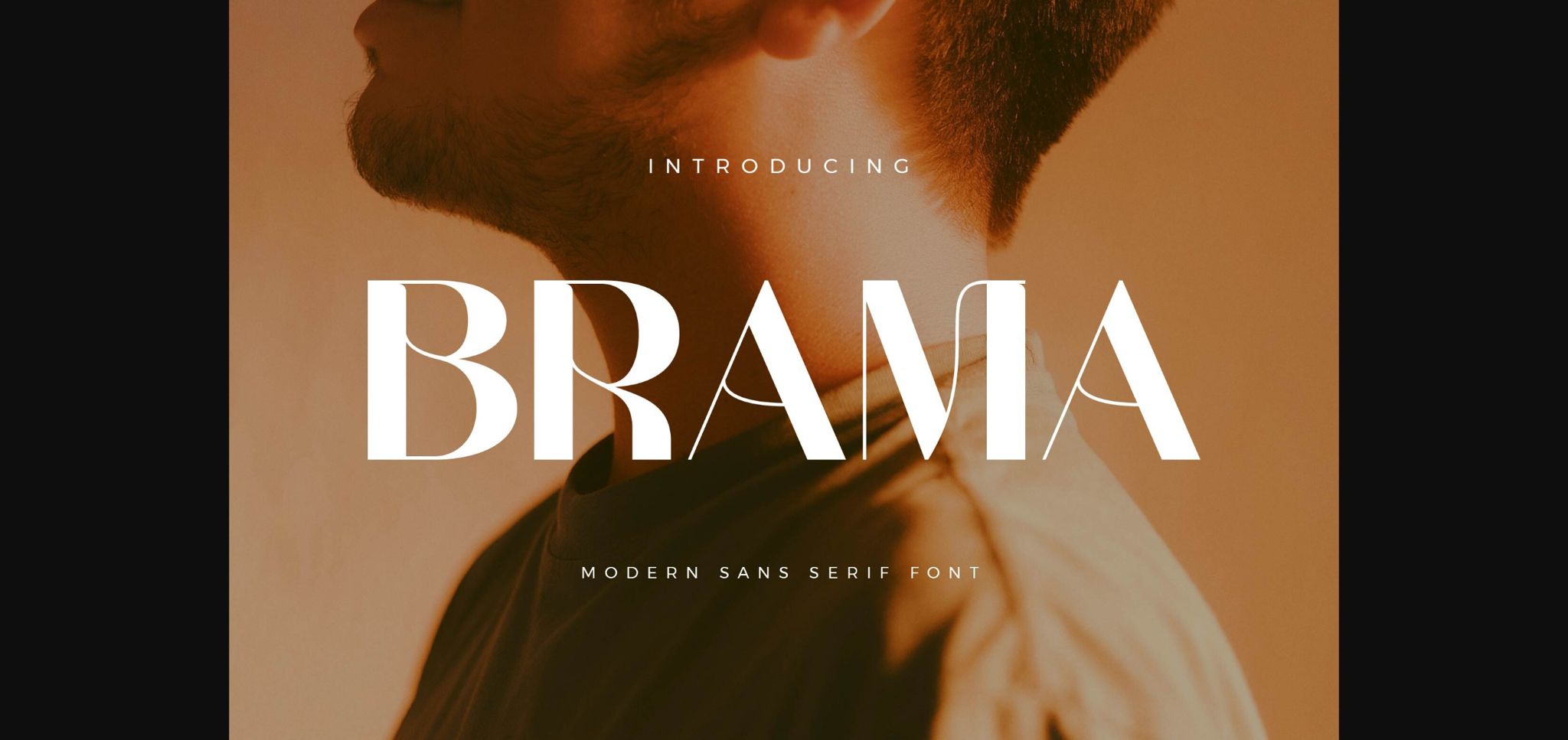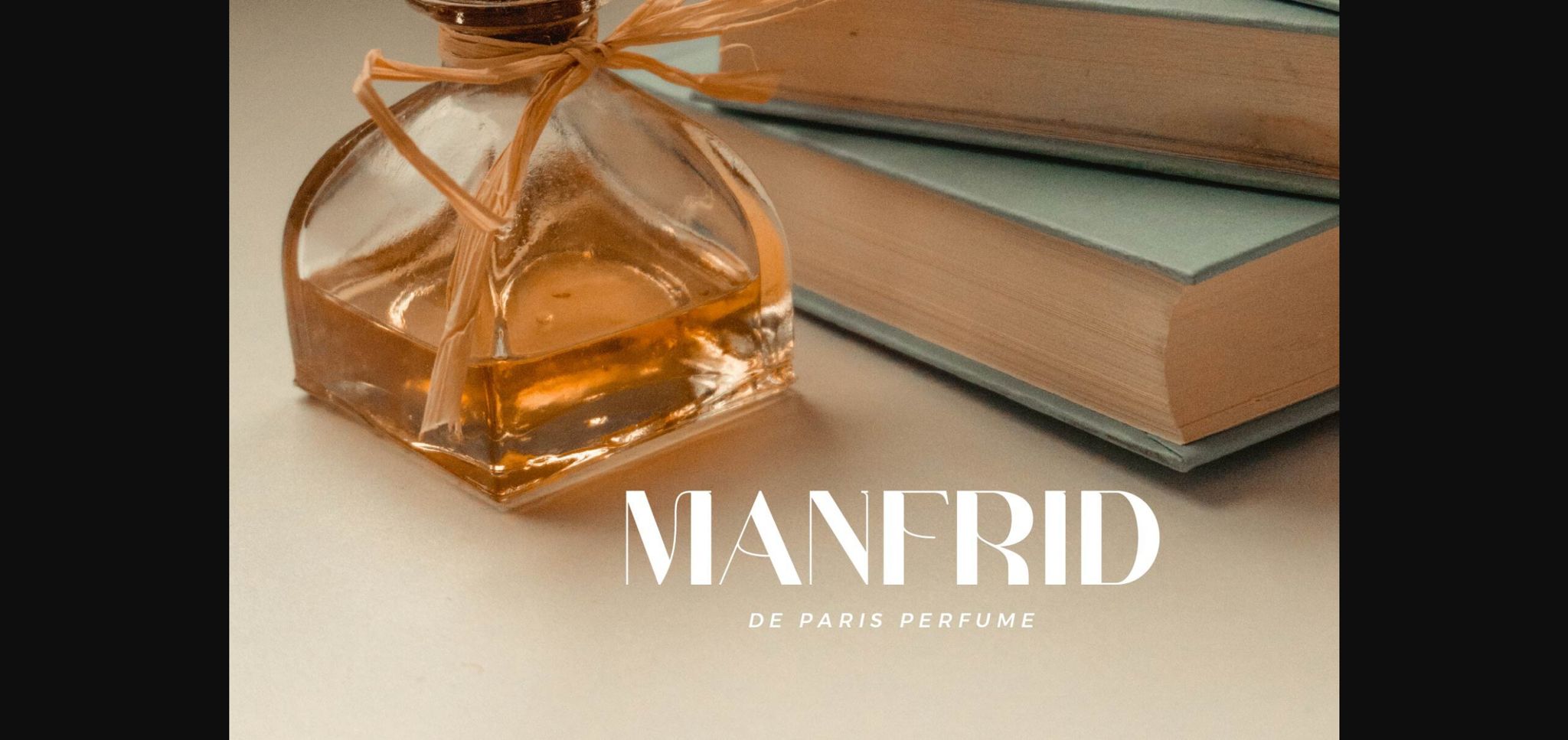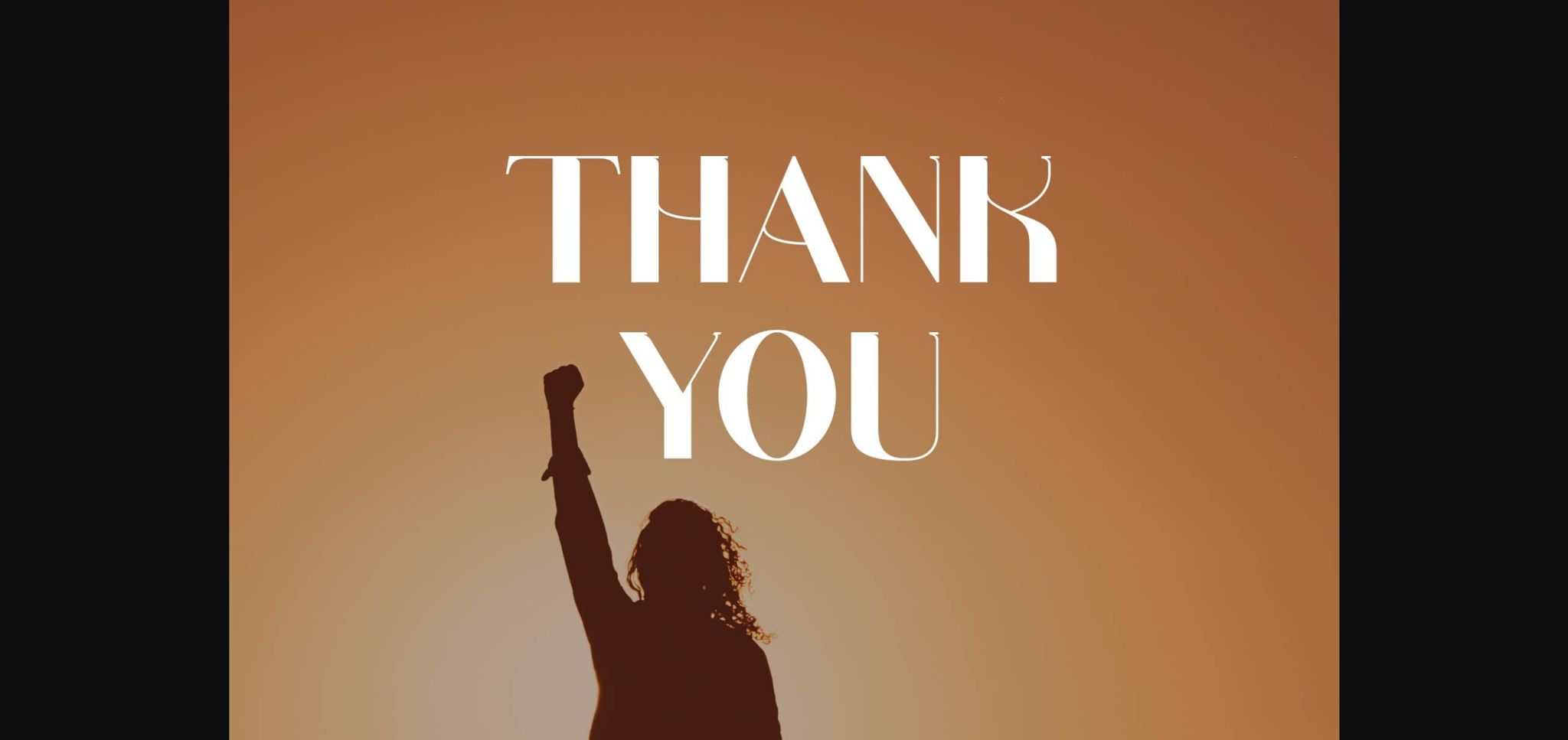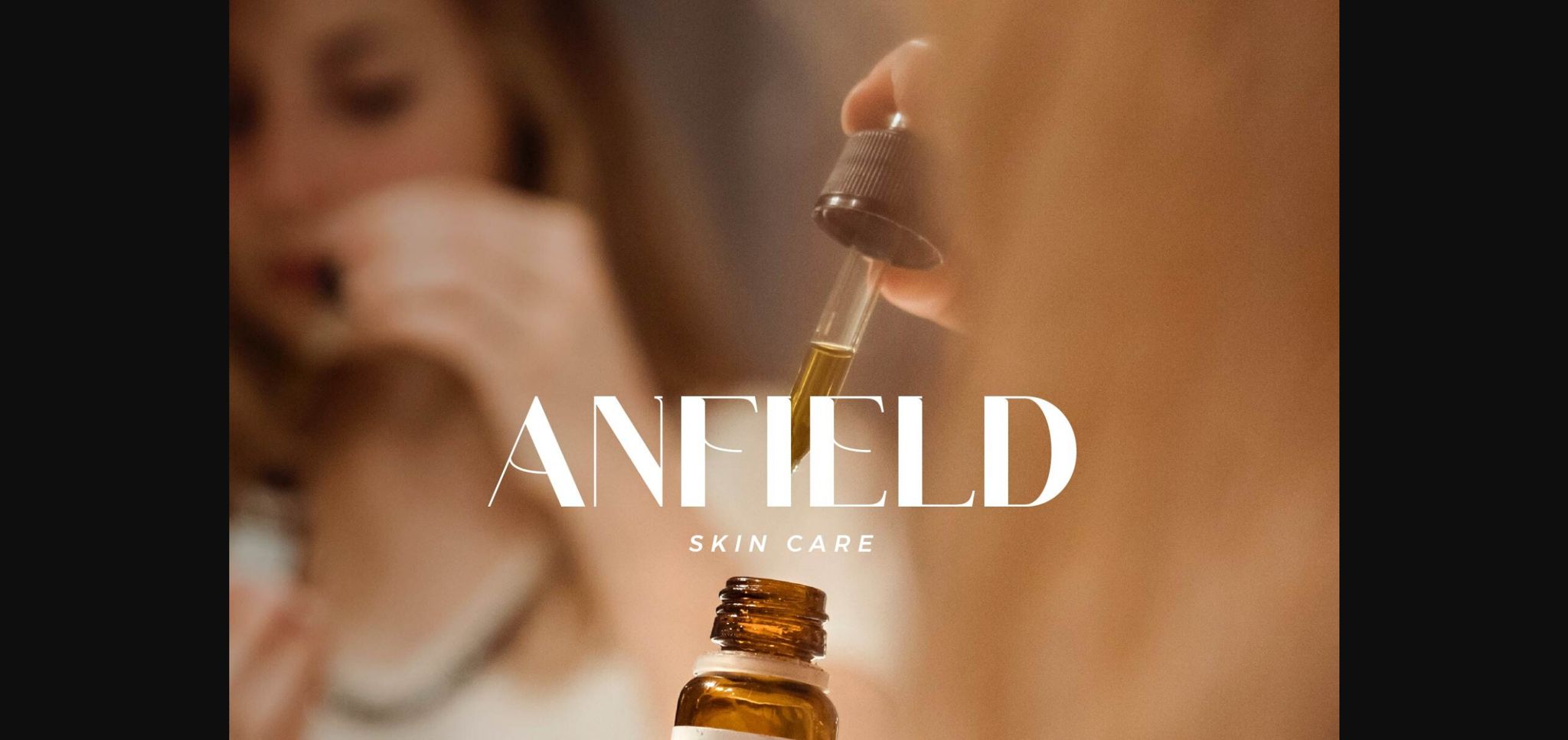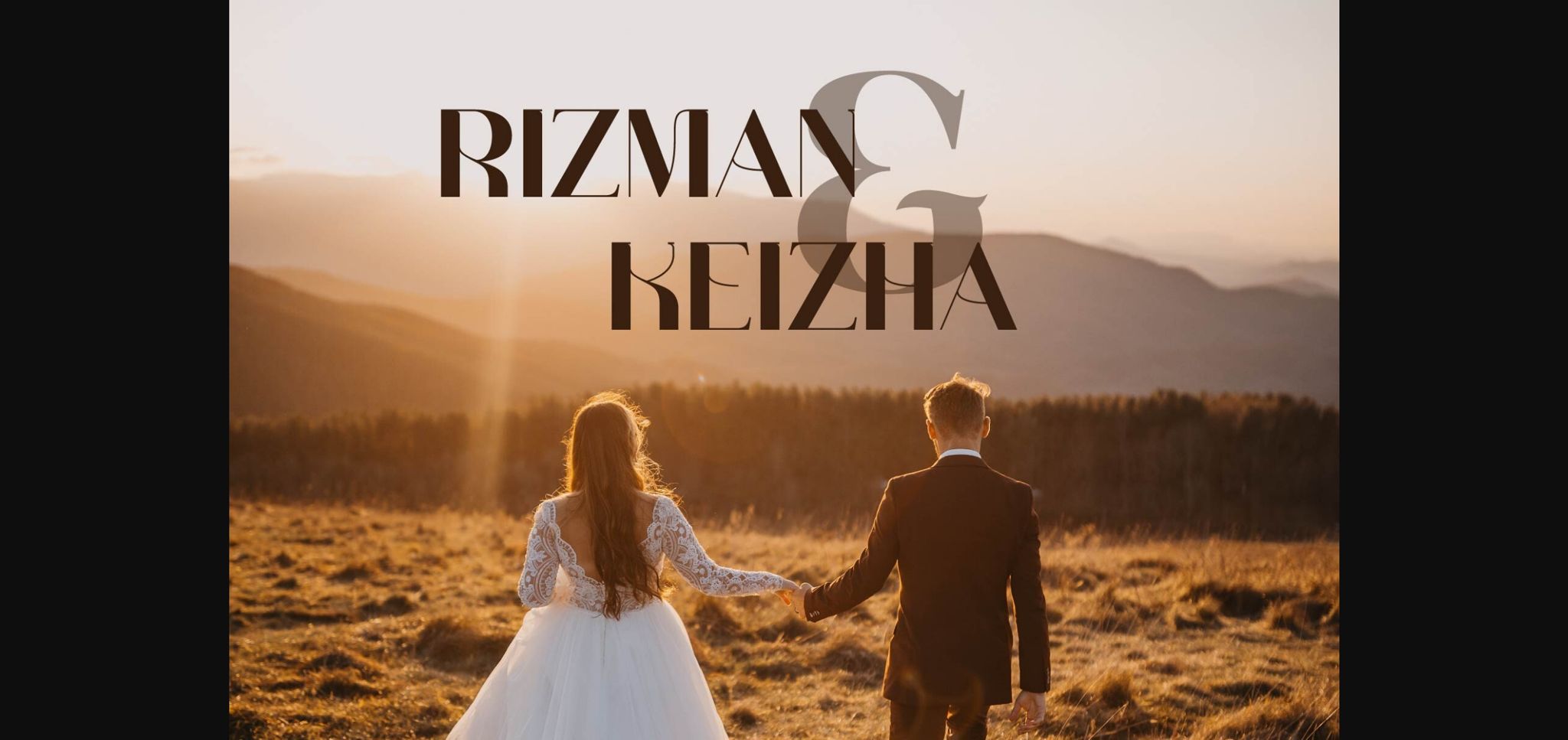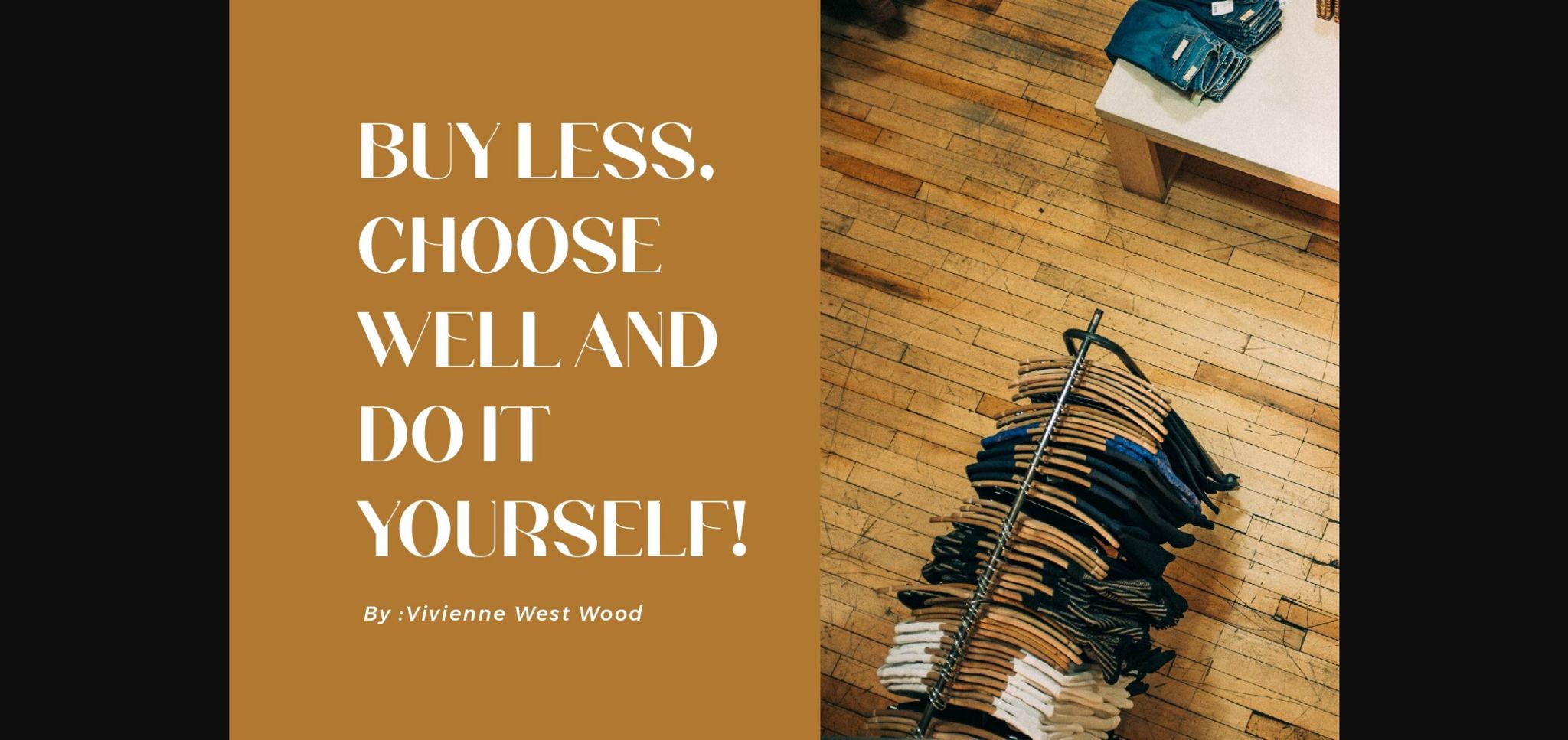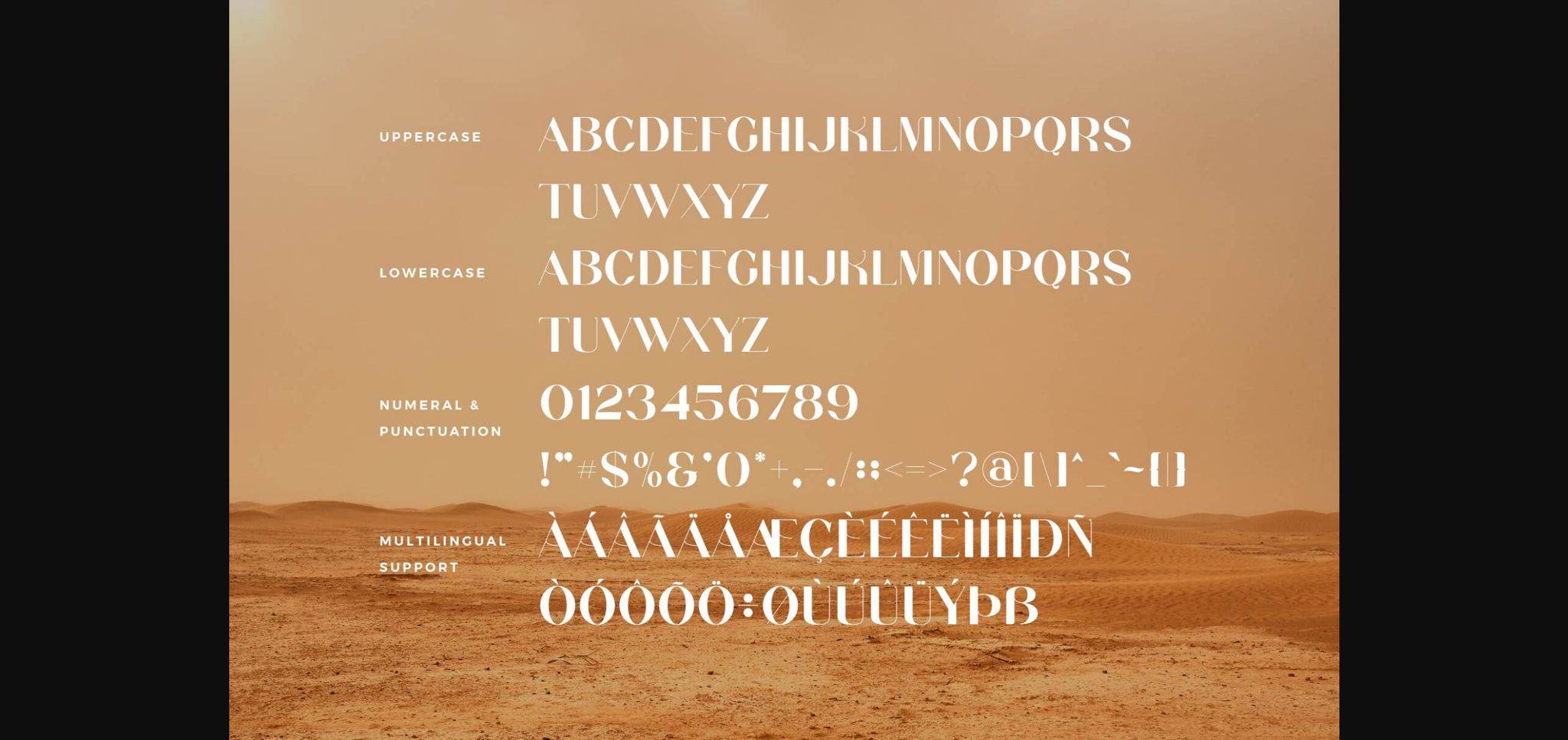
Brama Font
About Brama Font
Brama Sans Font Typeface inspired by the famous minimalist logo perfect for the purposes of designing templates, brochures, videos, advertising branding, logos, invitation, layout design, elegant crafting, beauty design and other.